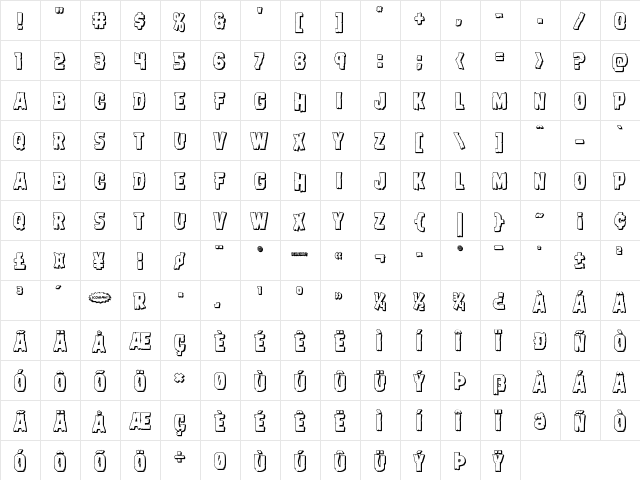
Dread Ringer 3D Regular
Design Context for Dread Ringer 3D Typeface
Dread Ringer 3D is a composed and adaptable typeface that performs quietly and consistently across a wide range of design contexts.